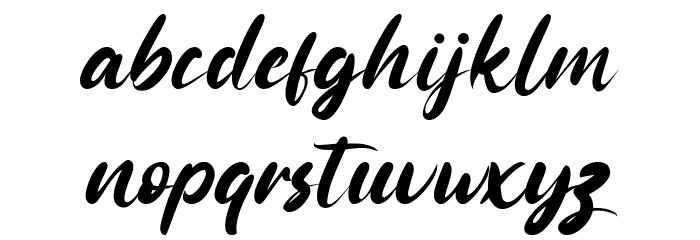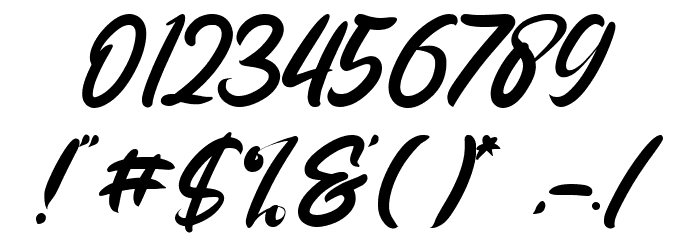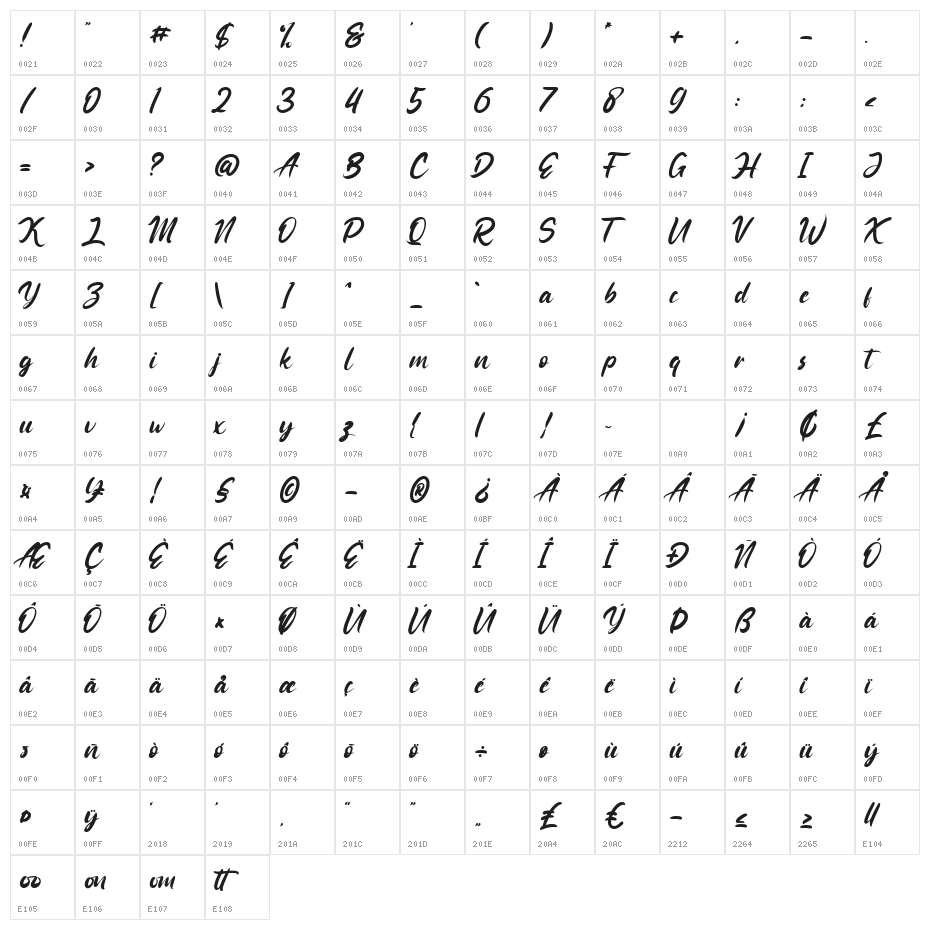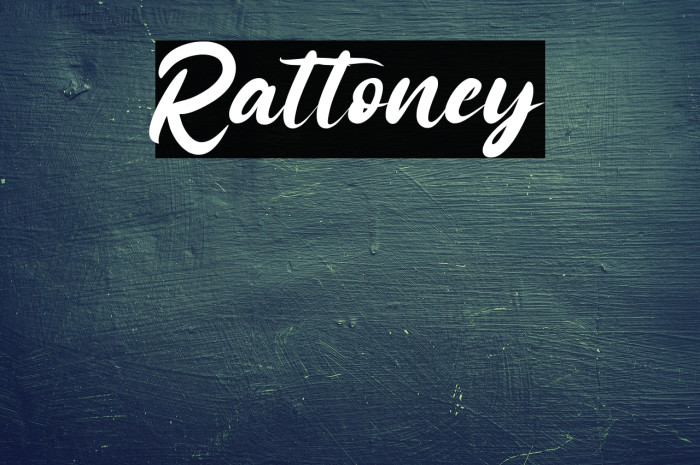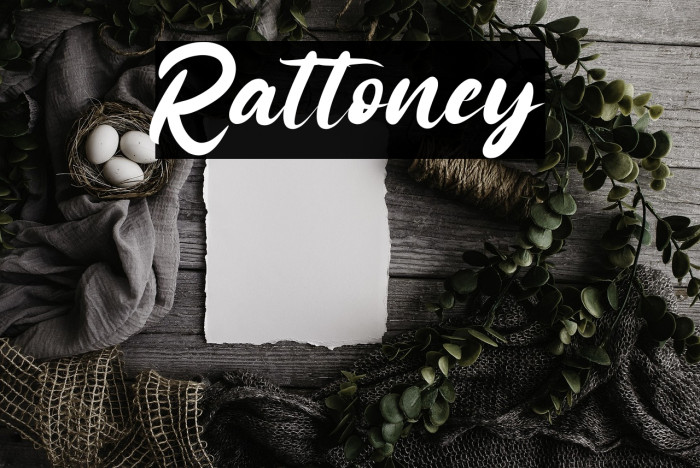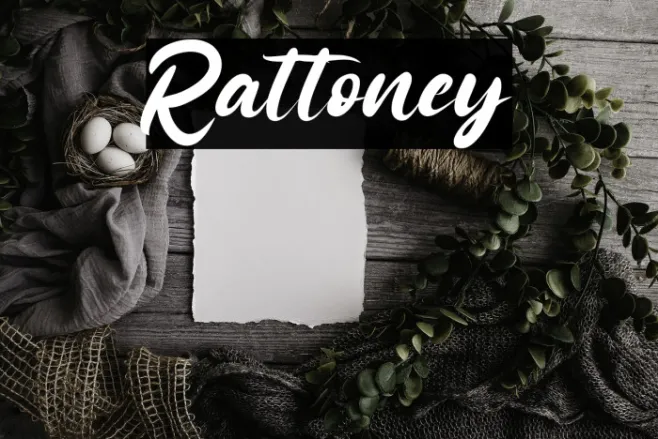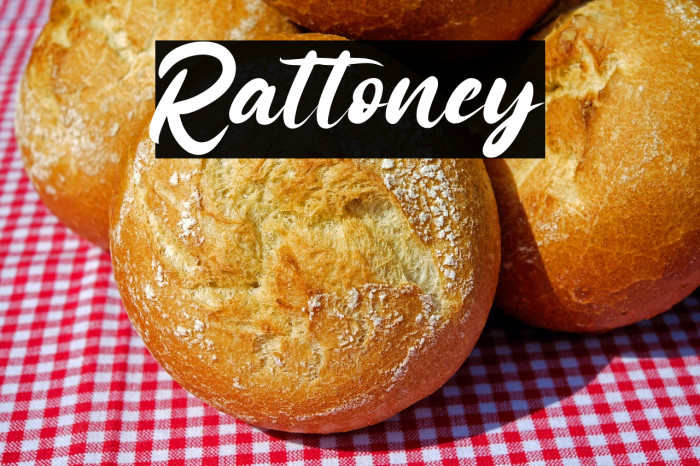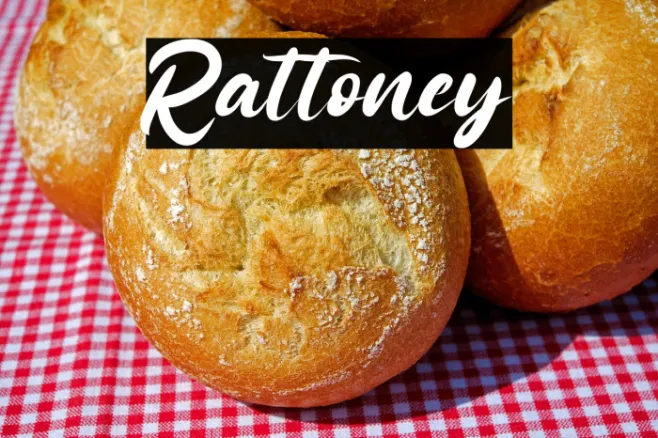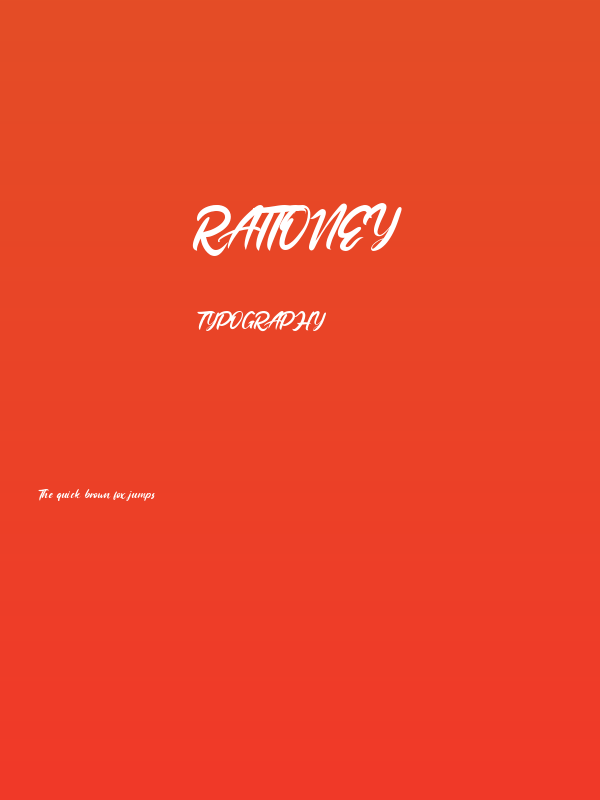
Rattoney Font
This font features a dynamic and flowing script style, characterized by its elegant and cursive letterforms. The strokes are smooth and connected, giving it a handwritten appearance that is both stylish and sophisticated. The uppercase letters are bold and prominent, while the lowercase letters maintain a consistent flow, enhancing readability. The numerals and special characters are crafted with the same fluidity, ensuring a cohesive look across all text. This font is perfect for adding a personal touch to any design, making it ideal for invitations, branding, and decorative projects.
A dynamic and flowing script font with elegant cursive letterforms.
- Proposed Projects: Ideal for wedding invitations, branding, greeting cards, and decorative signage.
- Category: Script
- Use Case: Logos, Headlines, Invitations